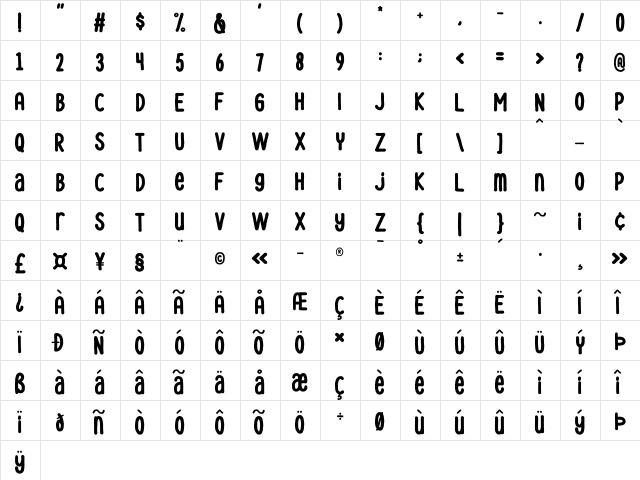
Design Context for Le Havre City Bold Typeface
Le Havre City Bold takes a measured approach to typography — its balanced proportions and neutral character make it a reliable workhorse for both digital and print work. Its bold stroke weight gives it real presence on the page.
Pro Tip: Pair Le Havre City Bold with a font of contrasting weight or personality to build a more expressive typographic hierarchy.